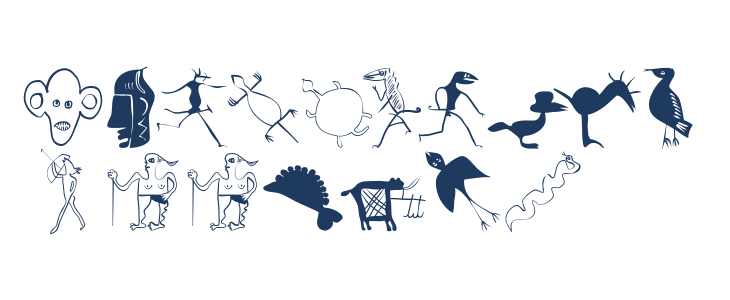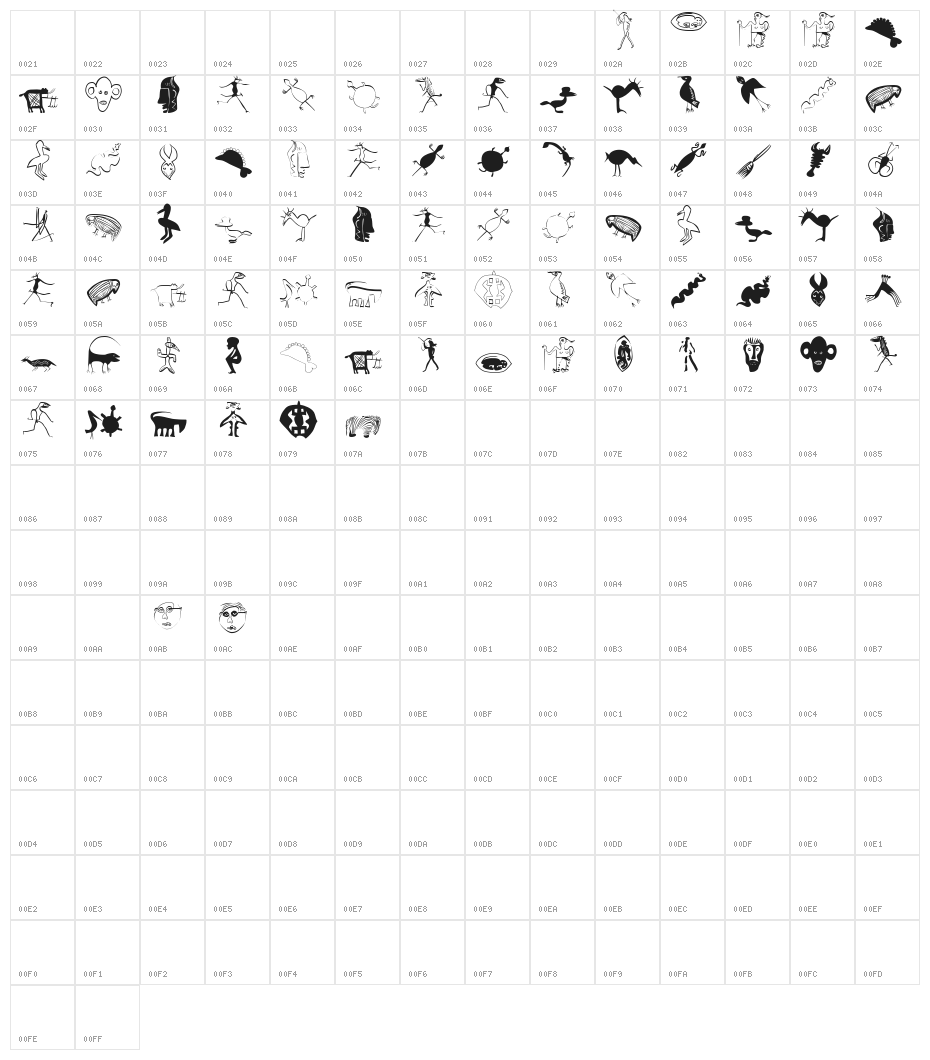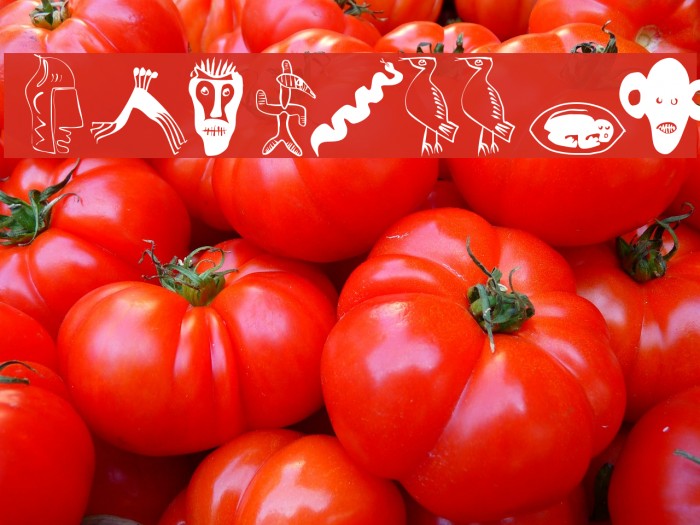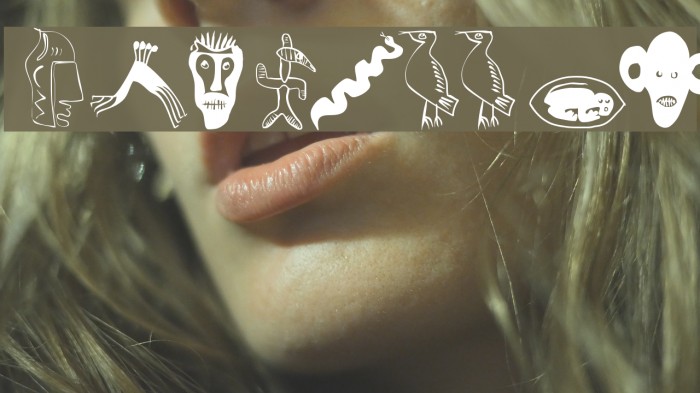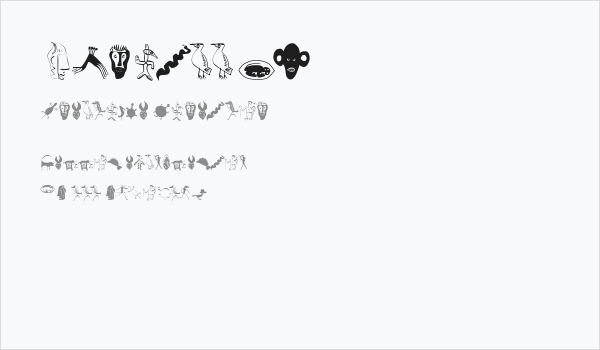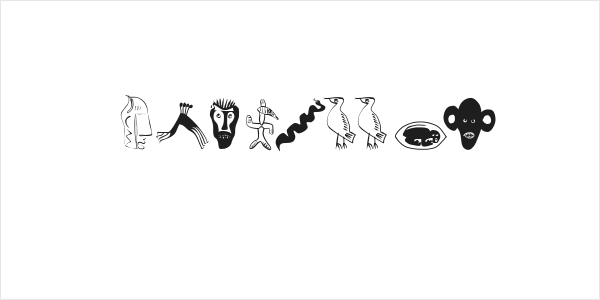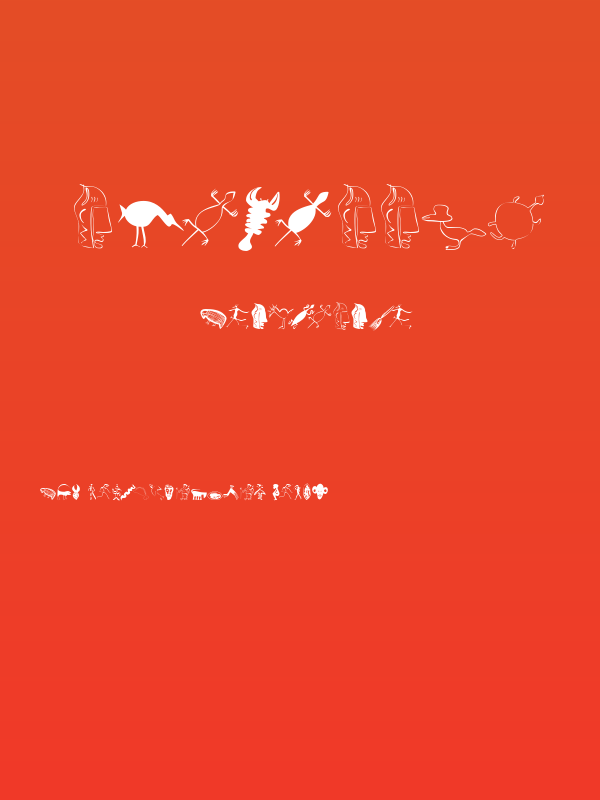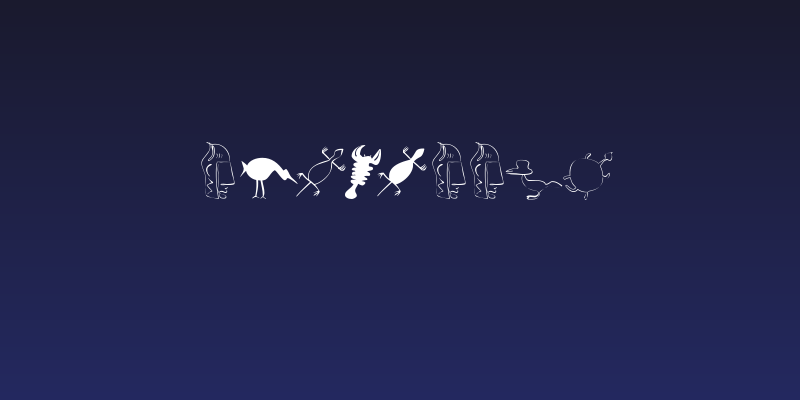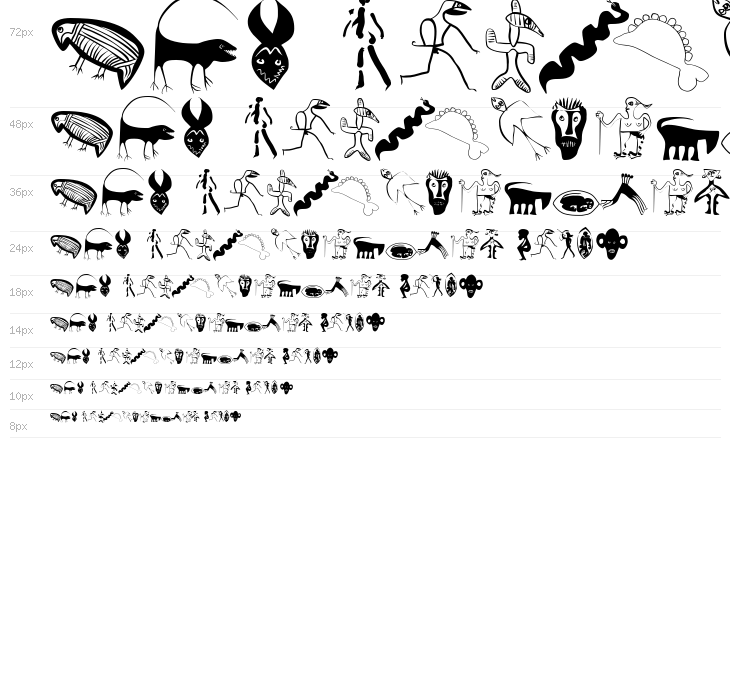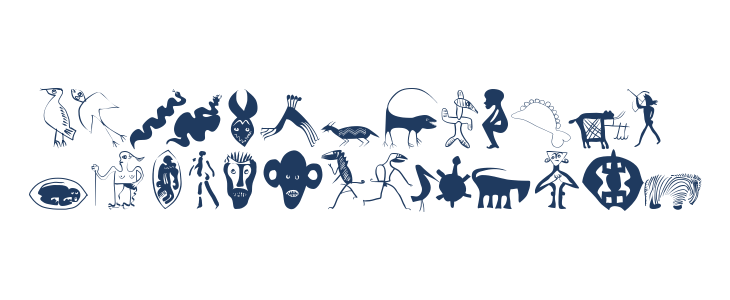
Africaans Font
Africaans Description
This is not a valid font. The image consists of various abstract and stylized illustrations resembling ancient or tribal art. The characters are not consistent with any recognizable alphabet or typographic style, making it unsuitable for standard text representation. The designs are more artistic and decorative, featuring figures and symbols that evoke a sense of cultural or historical storytelling.
| Use Case | Artistic displays, cultural themes, decorative elements. |
| Proposed Projects | This style could be used for artistic projects, cultural exhibitions, or decorative purposes where a tribal or ancient aesthetic is desired. |